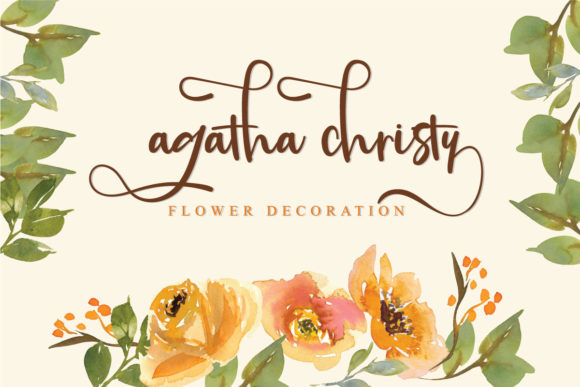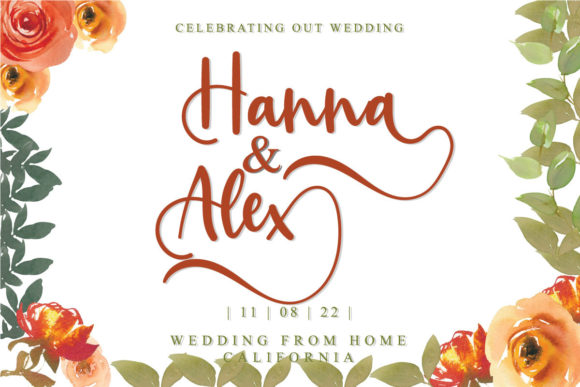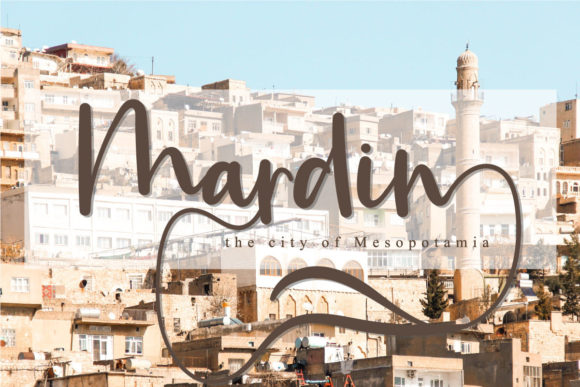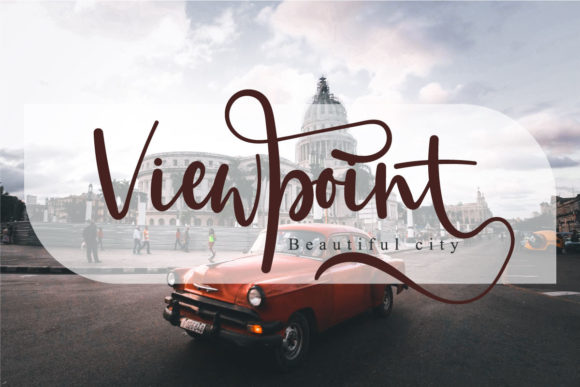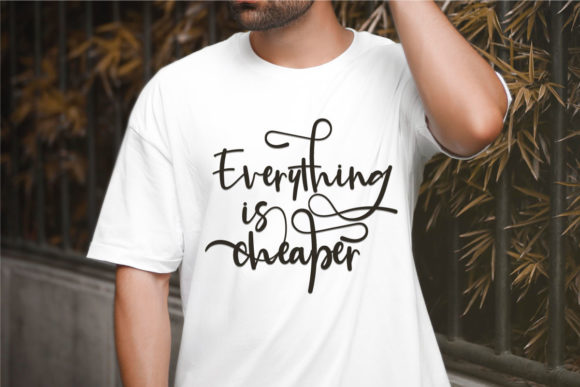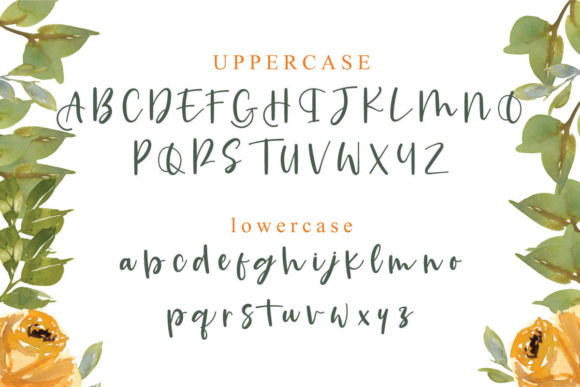
Introduction to Mention Font
| 👤 Author | Arief Indra Pratama |
One such game-changer is the Mention Font, a beautiful script font that’s perfect for design quotes, invitations, crafts, logos, and much more. With its high quality and versatility, it’s a valuable addition to any designer’s toolkit. Whether you’re working on a personal project or a commercial design, the Mention Font is sure to bring a touch of elegance and sophistication to your creations.
Mention Font
- High-quality, unique font design ideal for creative projects
- Perfect design resource for graphic designers, digital artists, and writers
Honest Review: Mention Font
As a designer, I’m always on the lookout for high-quality design resources to elevate my creative projects. The Mention Font caught my attention, and I’m excited to share my thoughts.
- Unique and stylish aesthetic that’s perfect for modern designs
- Clear and readable typography, making it suitable for a wide range of applications
- Available in various weights and styles, offering flexibility for different design needs
- Some users may find the font too bold or overwhelming for certain design contexts
- Limited support for custom styling or modifications, which may limit its creative potential
Overall, the Mention Font is a solid addition to any designer’s toolkit. Its high-quality design and transparent background make it a great resource for creative projects. While it may have some limitations, its unique aesthetic and flexibility make it a valuable asset for designers looking to add some personality to their work.
Mention Font
The Mention Font is a unique and stylish design resource perfect for any high quality, creative project. This versatile font is available for free download and features a transparent background, making it easy to integrate into your design.
The Mention Font is perfect for a wide range of creative projects, including:
- Reports
- Blog posts